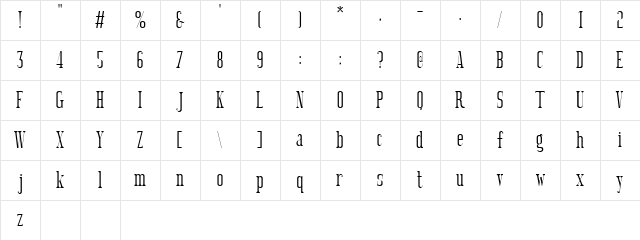
Khalisa_DEMO Regular Free Font
Khalisa_DEMO Regular
Foundry: MysticalType Studio Co.
Designer: Candi Erwanto
Design Context for Khalisa_DEMO
Khalisa_DEMO is a composed and adaptable typeface that performs quietly and consistently across a wide range of design contexts.